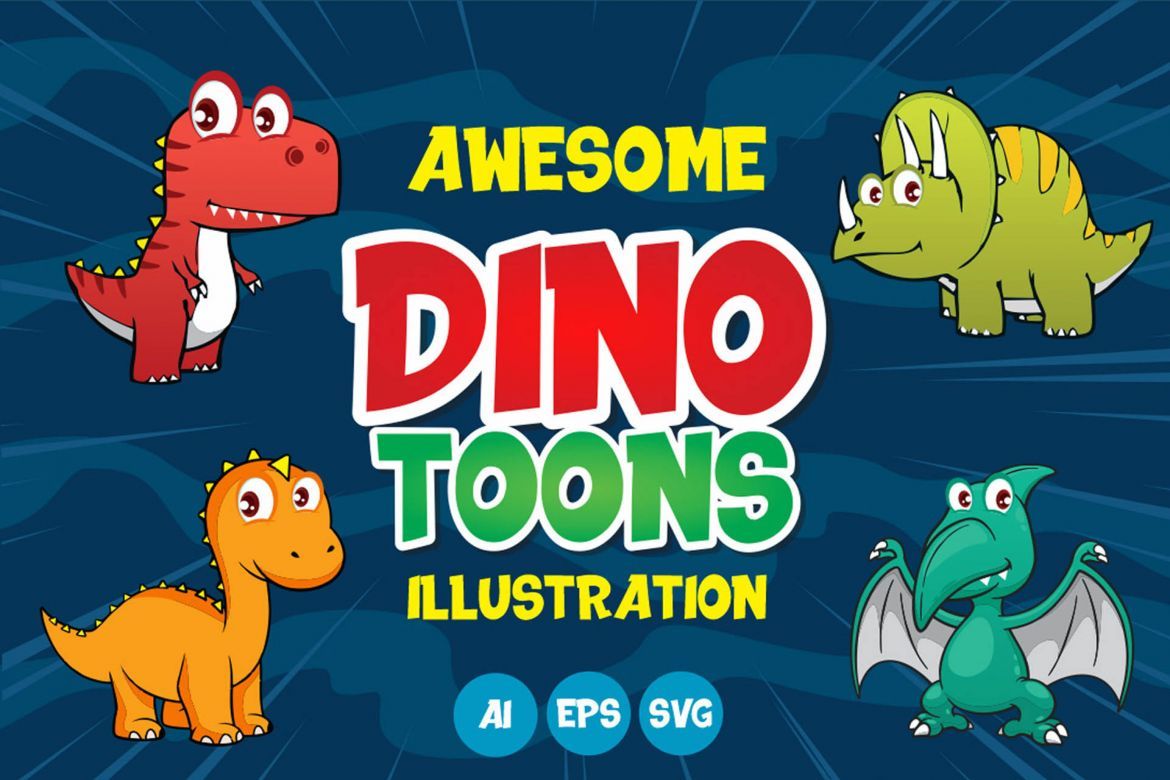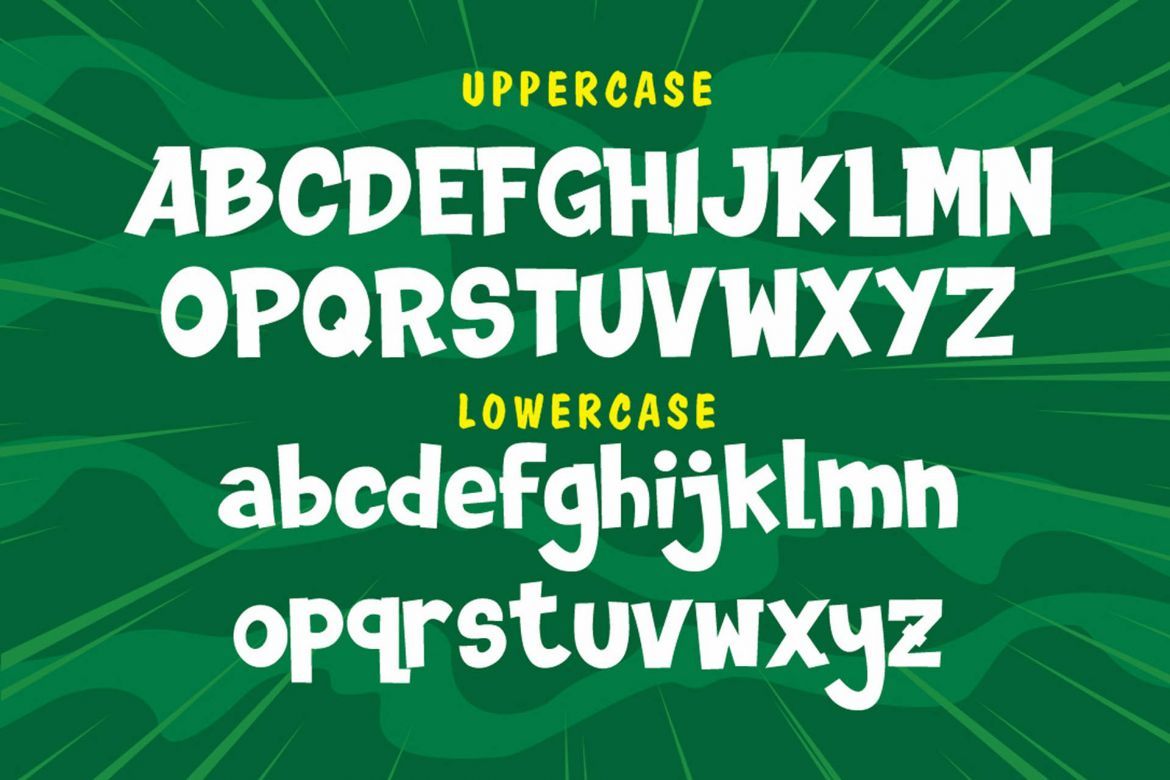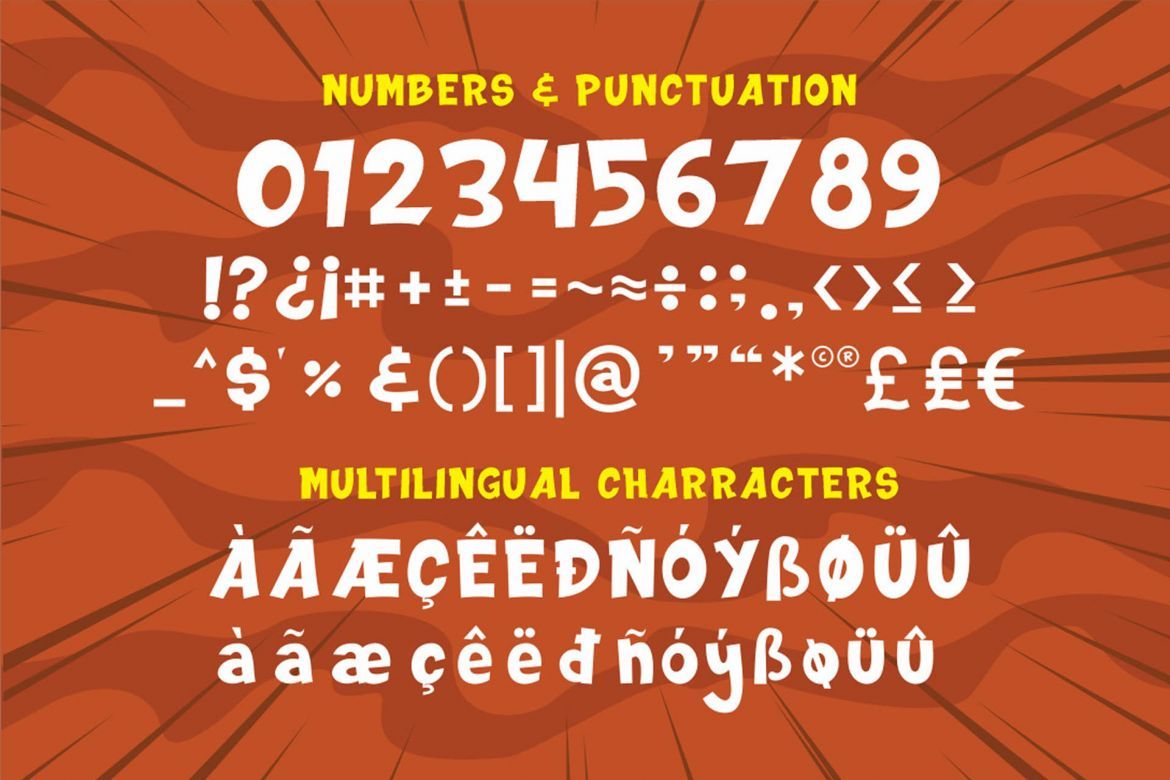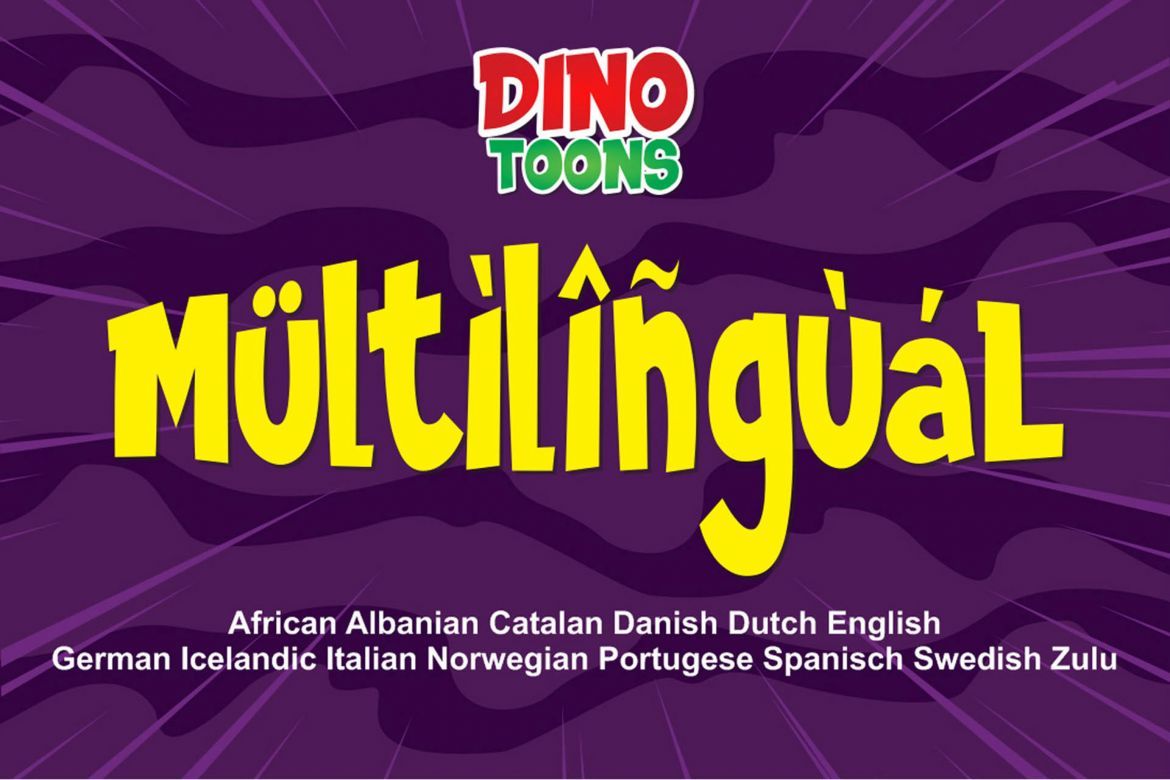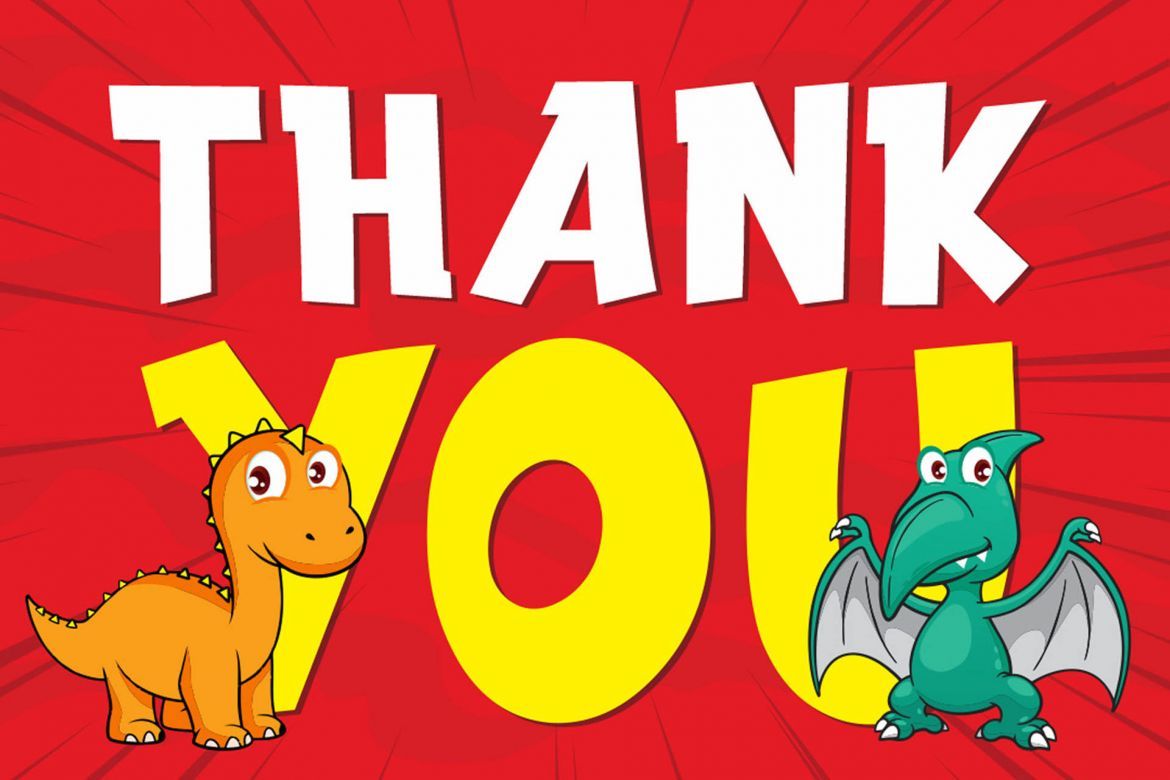
DINOTOONS Display Font
The Dinotoons is an unique display font. It’s perfect for adding a cute and playful touch to your designs.
It comes with 4 awesome illustrations, making it very perfect to use for quotes, logotype, badges, labels, packaging, t-shirt, or simply use it in your next design project.